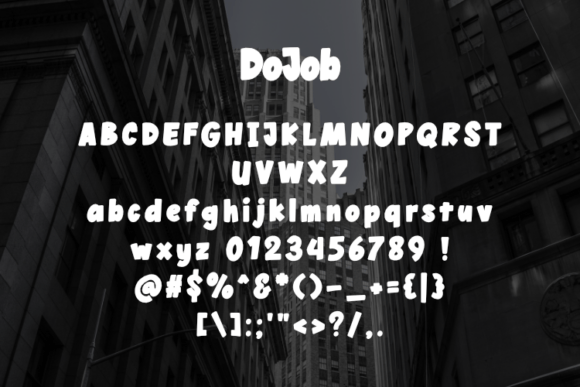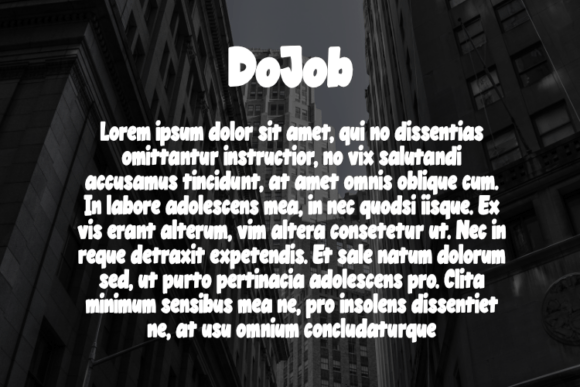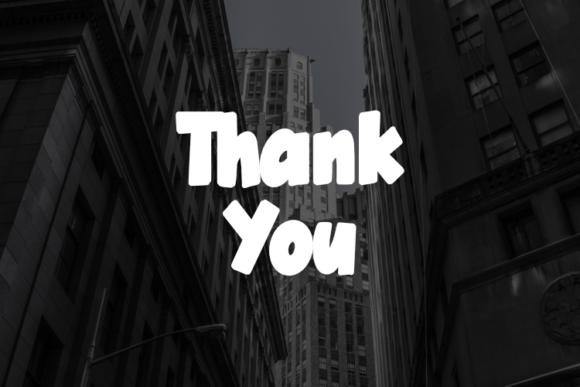
Introducing Dojob Font: The Perfect Choice for Your Design Projects
Are you a designer or crafter looking for a font that can elevate your creative projects? Look no further than the Dojob Font. This font is a perfect choice for your various design projects, from trendy apparel and t-shirts to other creative products. Designed with versatility in mind, this font offers an attractive and easy-to-read look, so your message gets across clearly and effectively.
What Makes Dojob Font Stand Out?
The Dojob Font is a unique and stylish font that can add a touch of personality to your designs. Its clean and modern look makes it perfect for a wide range of projects, from fashion and lifestyle to technology and gaming. The font’s versatility is one of its standout features, allowing you to use it for both digital and print projects.
Key Features of Dojob Font
- Attractive and Easy-to-Read: The Dojob Font has a clean and modern look that is easy on the eyes, making it perfect for body text and headings.
- Versatile: The font is designed to work well in a variety of contexts, from trendy apparel to technical documents.
- High-Quality: The font is crafted with precision and attention to detail, ensuring that it looks great in any size or resolution.
Why Choose Dojob Font for Your Design Projects?
There are many reasons why you should consider using the Dojob Font for your design projects. Here are a few:
- Unique and Stylish: The Dojob Font has a unique and stylish look that can help your designs stand out from the crowd.
- Easy to Read: The font’s clean and modern look makes it easy to read, even at small sizes.
- Time-Saving: With the Dojob Font, you can save time and effort by using a high-quality font that is ready to use.
How to Use Dojob Font in Your Design Projects
Using the Dojob Font in your design projects is easy. Here are a few tips:
- Pair it with Other Fonts: The Dojob Font works well with other fonts, so feel free to experiment with different combinations.
- Use it for Headings and Body Text: The font is suitable for both headings and body text, making it a versatile choice for your designs.
- Experiment with Different Colors: The Dojob Font looks great in a variety of colors, so don’t be afraid to experiment and find the perfect color scheme for your design.